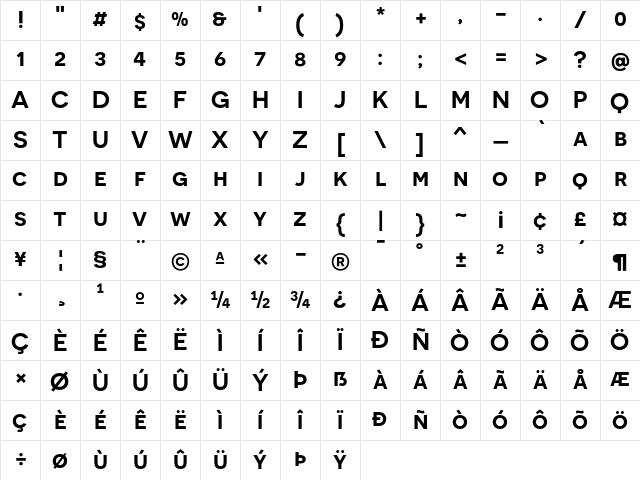
Novecento sans wide DemiBold Free Font
Novecento sans wide DemiBold
Style: DemiBold
Foundry: Jan Tonellato
Designer: Jan Tonellato
Design Context for Novecento sans wide
Novecento sans wide is a composed and adaptable typeface that performs quietly and consistently across a wide range of design contexts. Its bold stroke weight gives it real presence on the page.
Who designed the Novecento sans wide DemiBold font?